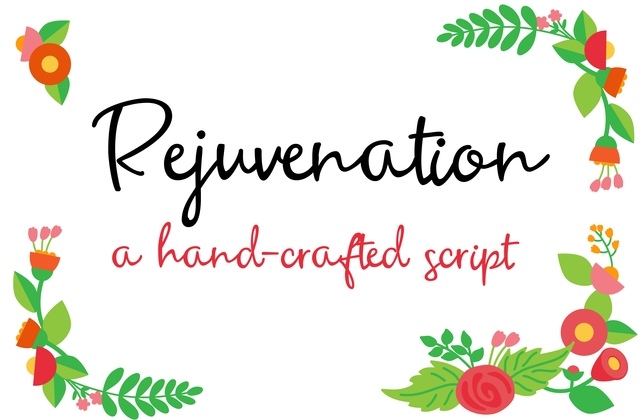
ZP Rejuvenation Font
ZP Rejuvenation Font revitalizes wellness center branding, spa and beauty salon signage, organic skincare packaging, health supplement labels, yoga studio materials, meditation app interfaces, natural cosmetics branding, anti-aging clinic communications, holistic health publications, fitness transformation campaigns, renewal therapy promotions, and vitality-focused marketing where restoration and renewed energy create powerful wellness connections.
This transformative typeface generates excitement through its perfect embodiment of renewal energy and wellness transformation that creates typography with healing power and revitalizing appeal. ZP Rejuvenation Font captures the essence of personal transformation and wellness journey with its fresh, energetic letterforms that suggest growth, healing, and positive change. The font's sophisticated design approach incorporates elements that evoke natural renewal processes, featuring flowing curves and organic proportions that mirror the body's natural healing rhythms. Its distinctive character reflects the optimism and vitality associated with wellness transformation, making it ideal for brands that promote health, beauty, and personal renewal.
The ZP Rejuvenation Font family encompasses multiple wellness-inspired variations including Regular, Light, Medium, Bold, and Organic versions, each maintaining the font's characteristic renewal energy while offering different levels of therapeutic impact. The collection features flowing alternates, natural ligatures, and gentle curves that enhance its healing aesthetic. Additional elements include wellness symbols, natural ornaments, and therapeutic decorative borders that complement the font's rejuvenating philosophy and reinforce its connection to health and vitality.
Wellness industry professionals consistently choose ZP Rejuvenation Font Free Download for projects requiring typography that communicates transformation, healing, and positive life changes. This remarkable typeface excels in applications where building trust and conveying therapeutic benefits are essential for client connection and business success. The font's rejuvenating qualities make it particularly effective for health and beauty brands targeting consumers seeking authentic wellness solutions and transformative experiences.
Whether you're designing spa branding materials, creating wellness product packaging, developing health transformation campaigns, or building therapeutic service identities, ZP Rejuvenation Font delivers unmatched wellness authenticity. Its ability to convey renewal, vitality, and therapeutic benefits makes it invaluable for wellness professionals seeking to communicate their commitment to client transformation and healing. The font's rejuvenating presence ensures your designs will inspire confidence and communicate the life-changing potential that defines exceptional wellness and beauty services.